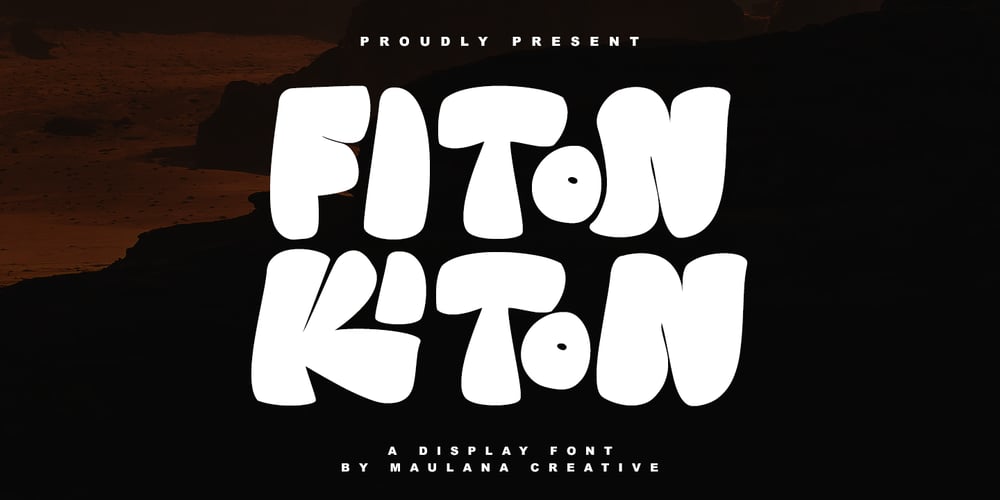
MC Fiton Kiton Font Family was designed by Gilang Maulana and published by Maulana Creative. MC Fiton Kiton contains 1 styles and family package options. Fiton Kiton a display font, fun character with a bit of ligatures. To give you an extra creative work. Fiton Kiton font support multilingual more than 100+ language.